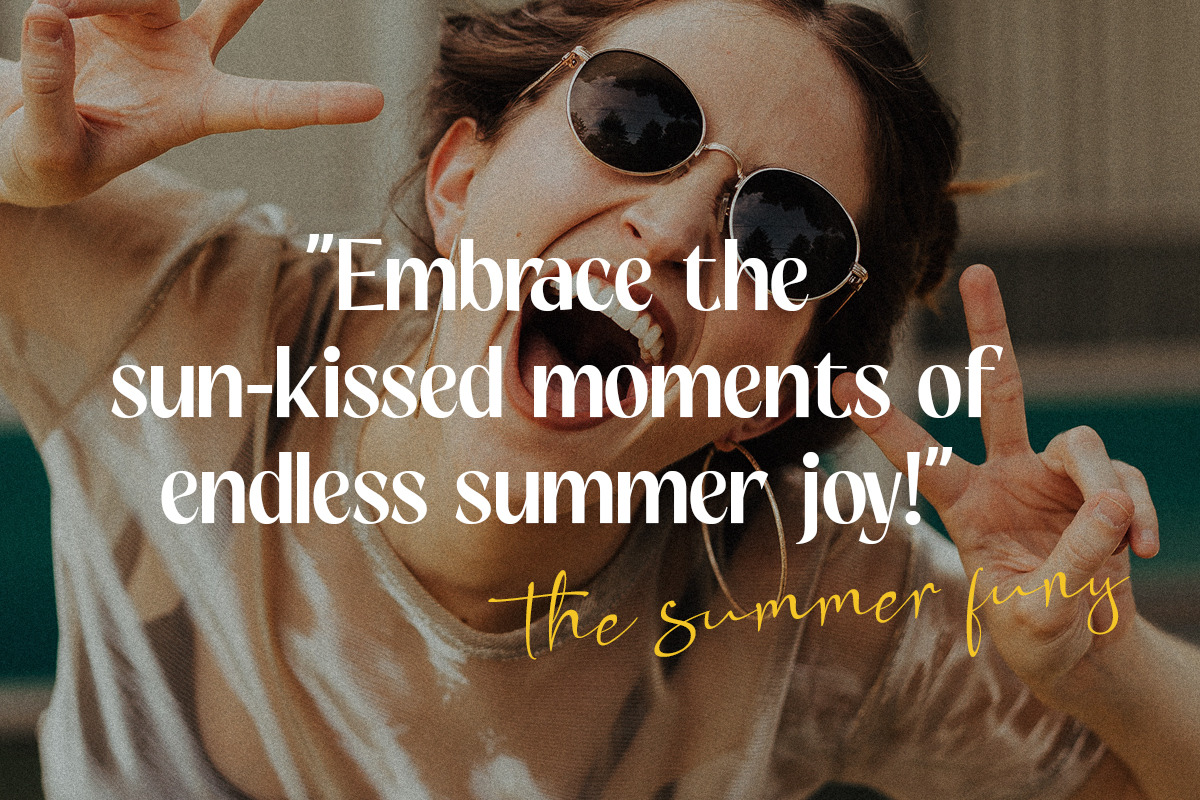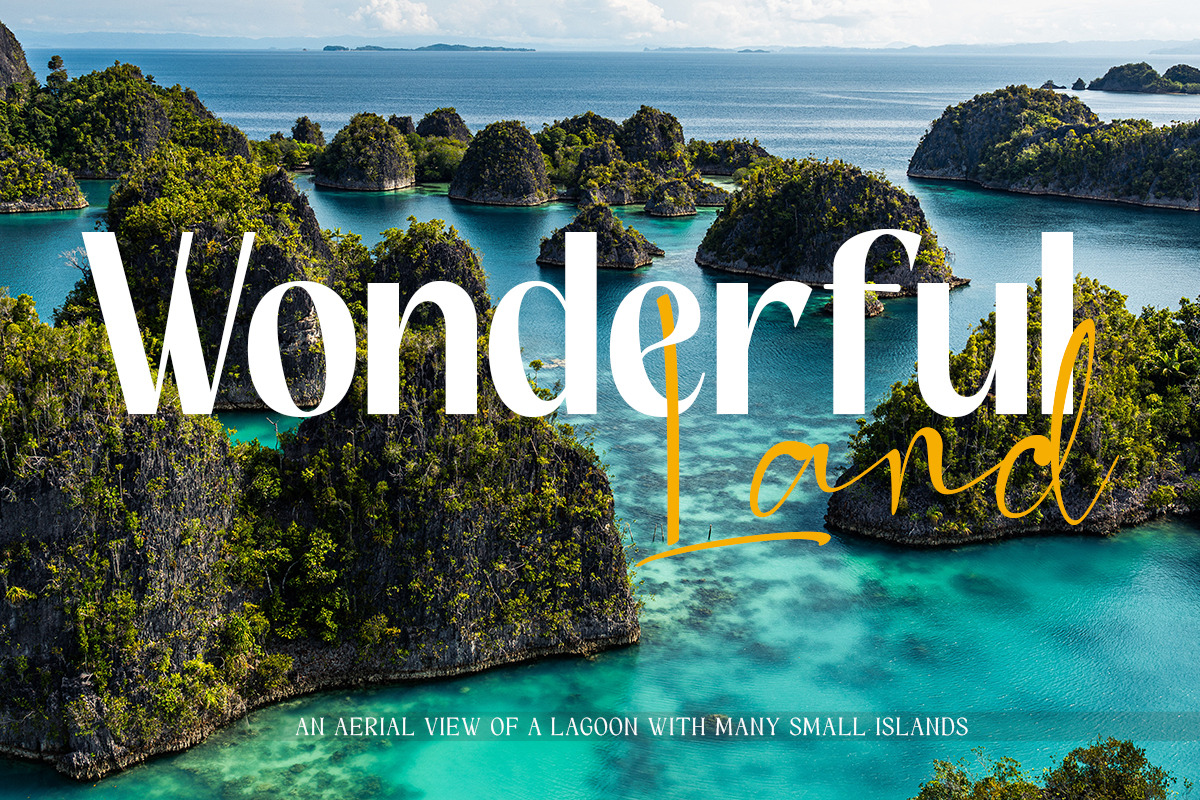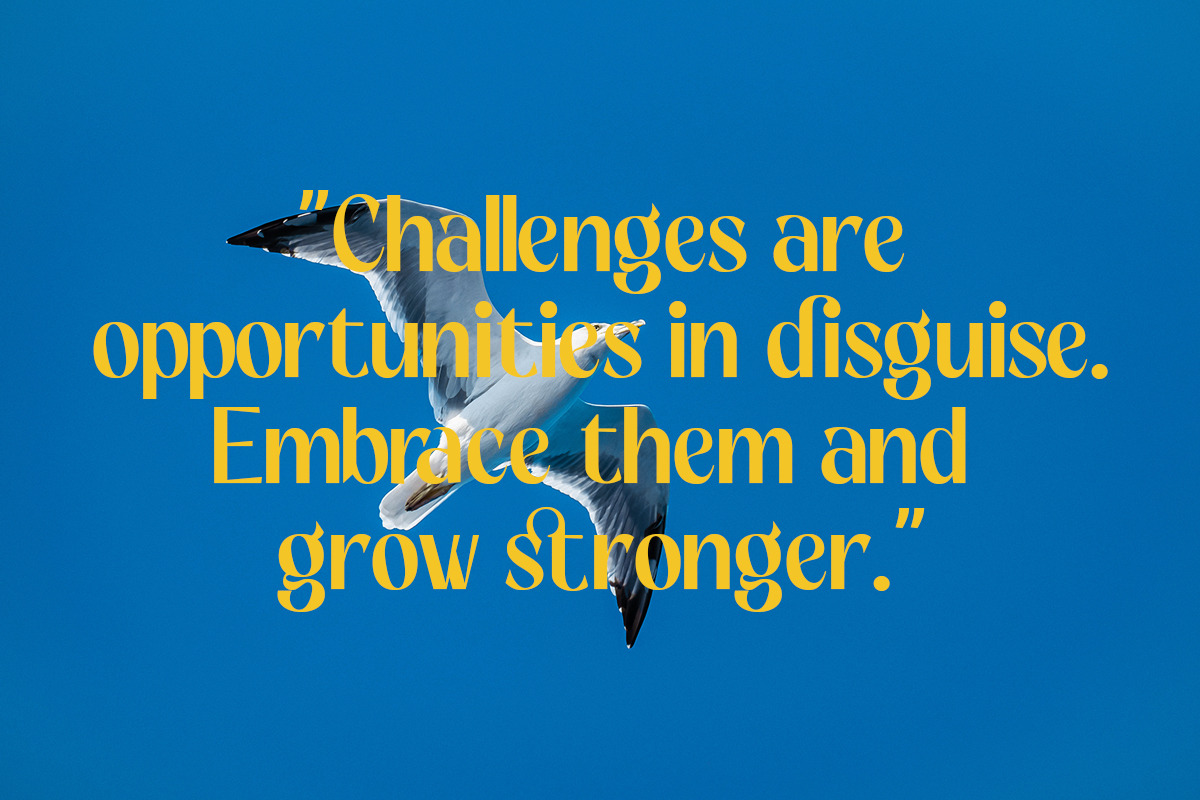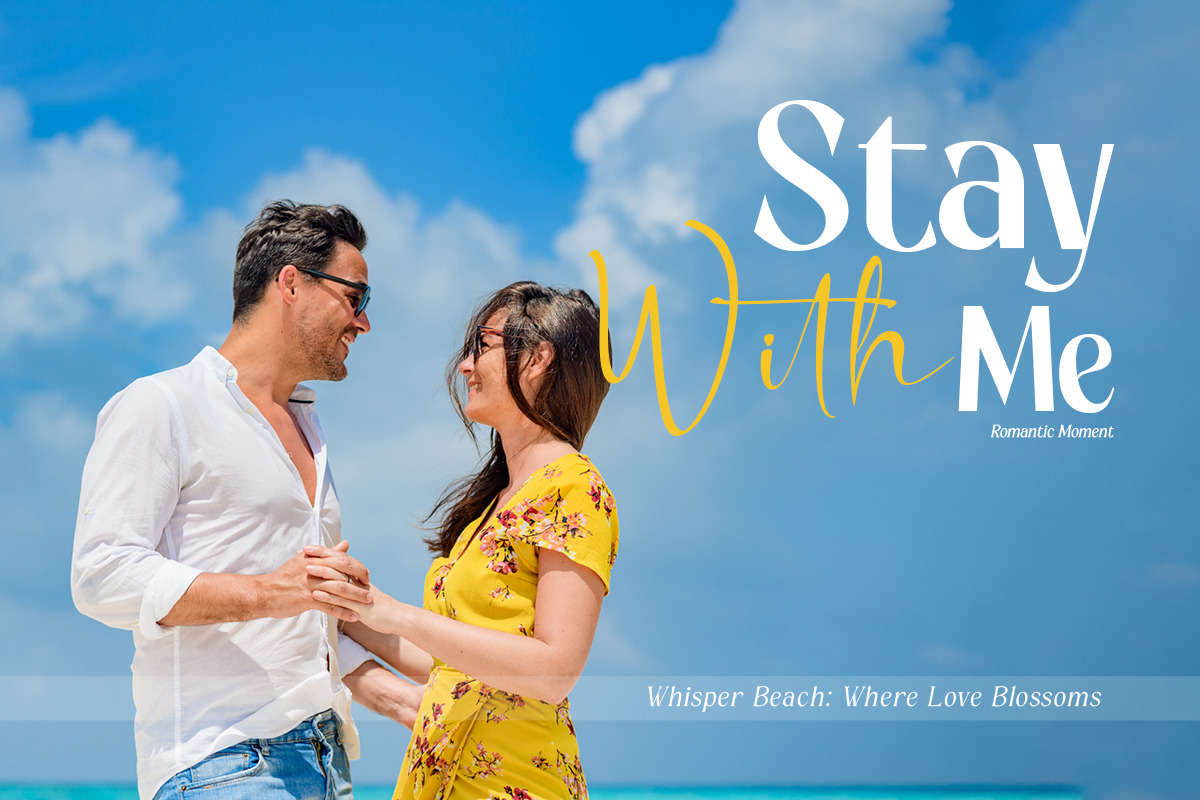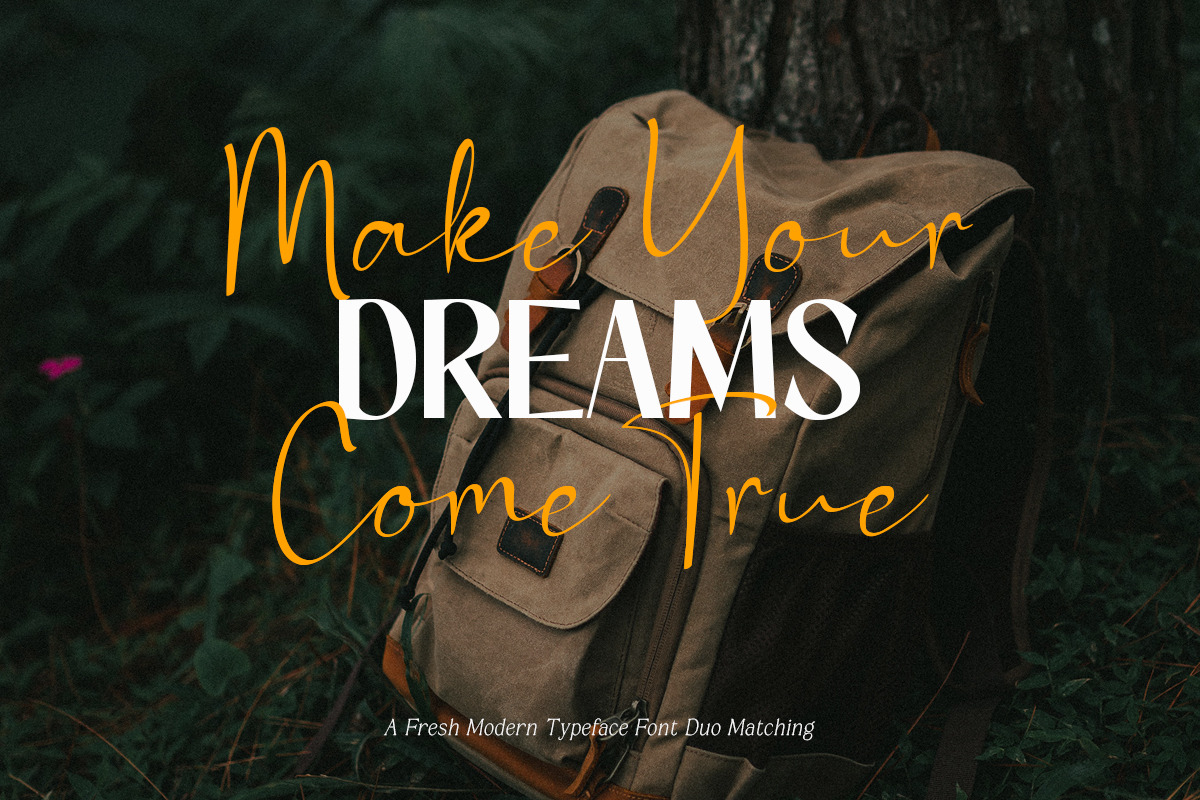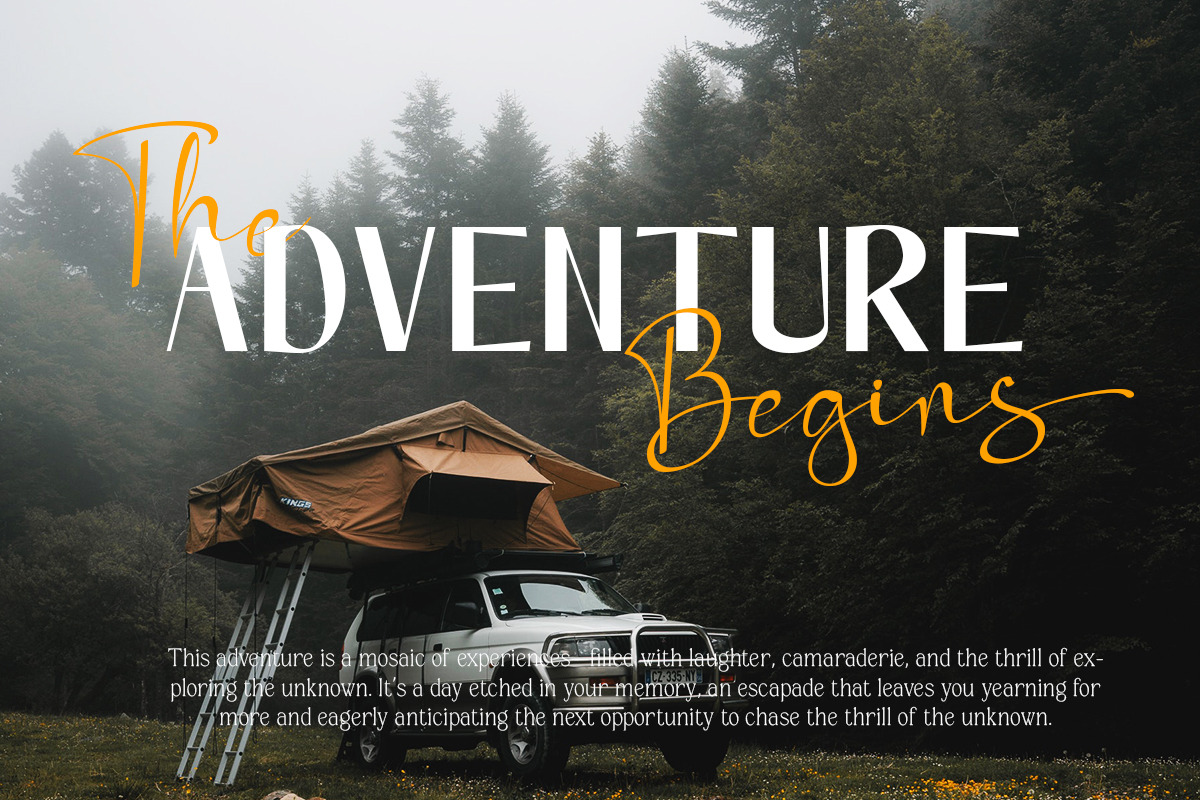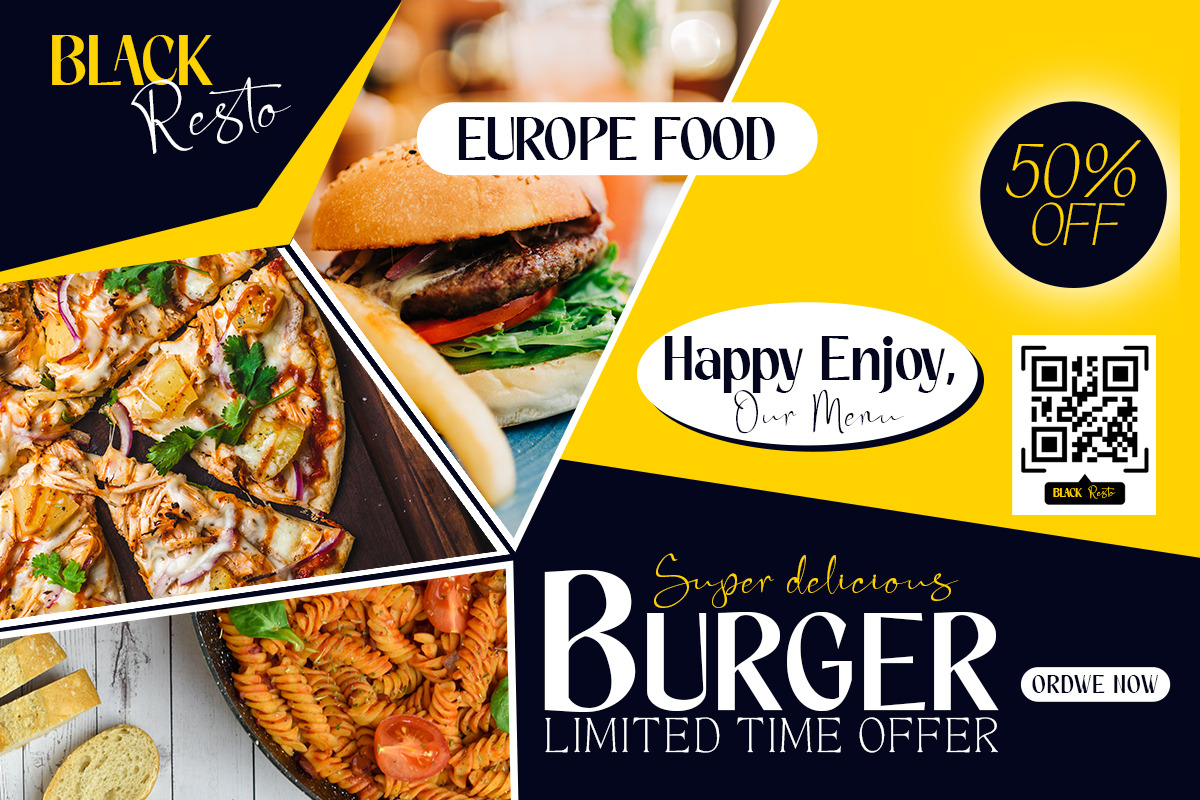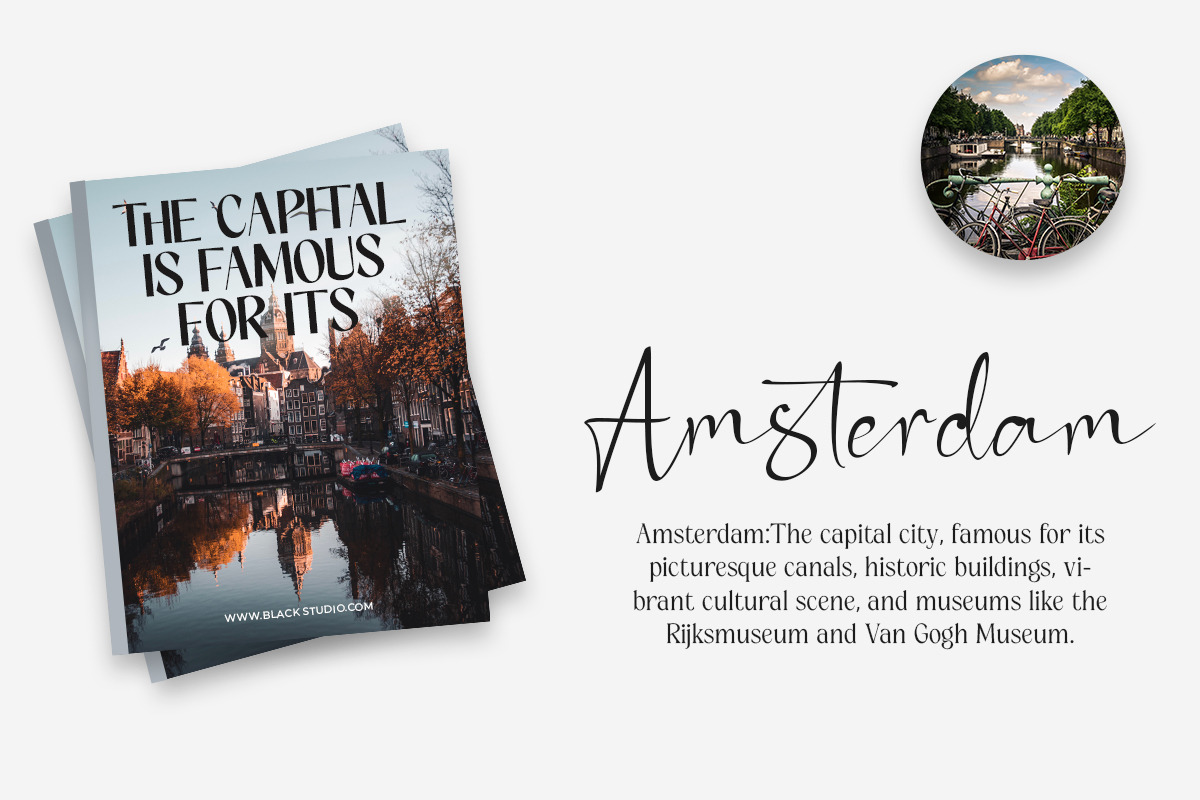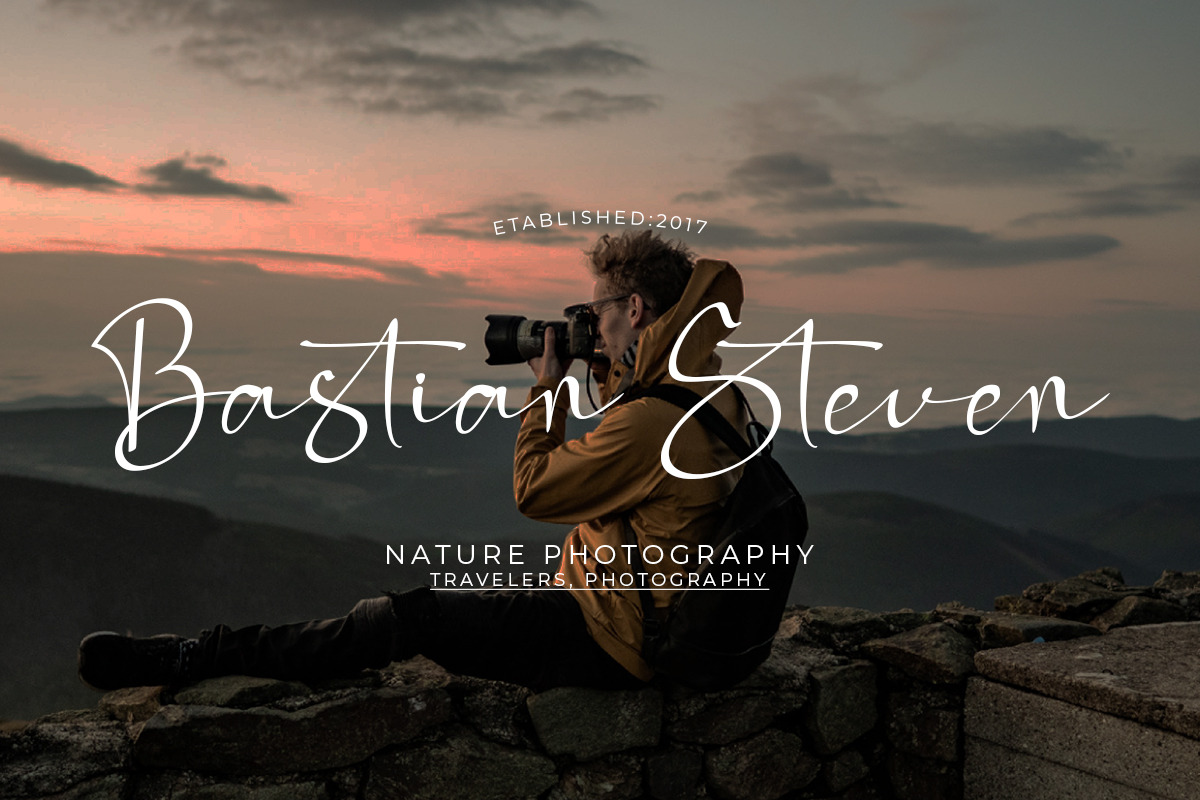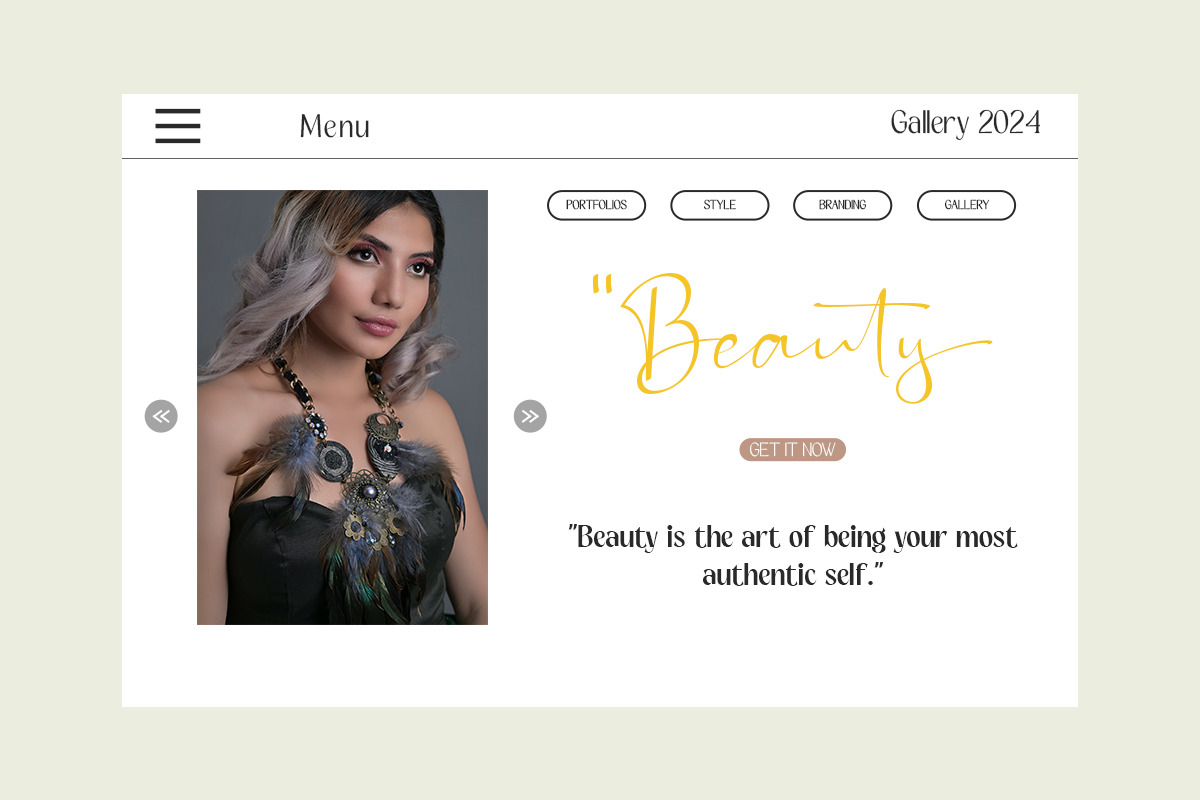
Vigilante Neue
Vigilante Neue is a striking font duo that combines modern simplicity with personalized elegance. The sans-serif font offers a clean and contemporary aesthetic, ensuring clarity and versatility in design. Paired with it, the Signature font adds a touch of handcrafted sophistication, making a bold statement with unique, fluid strokes. Together, they create a harmonious blend of structure and expressiveness, making Vigilante Neue an ideal choice for projects seeking a balance between modernity and individuality.